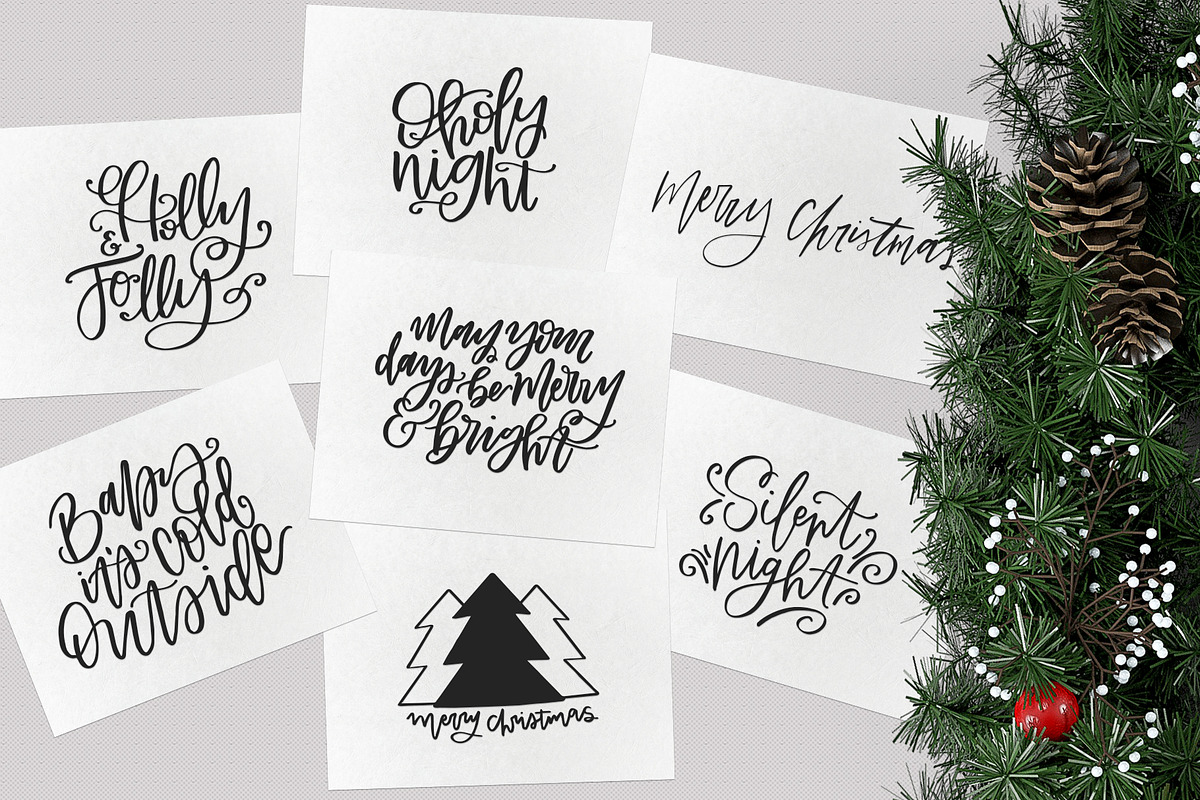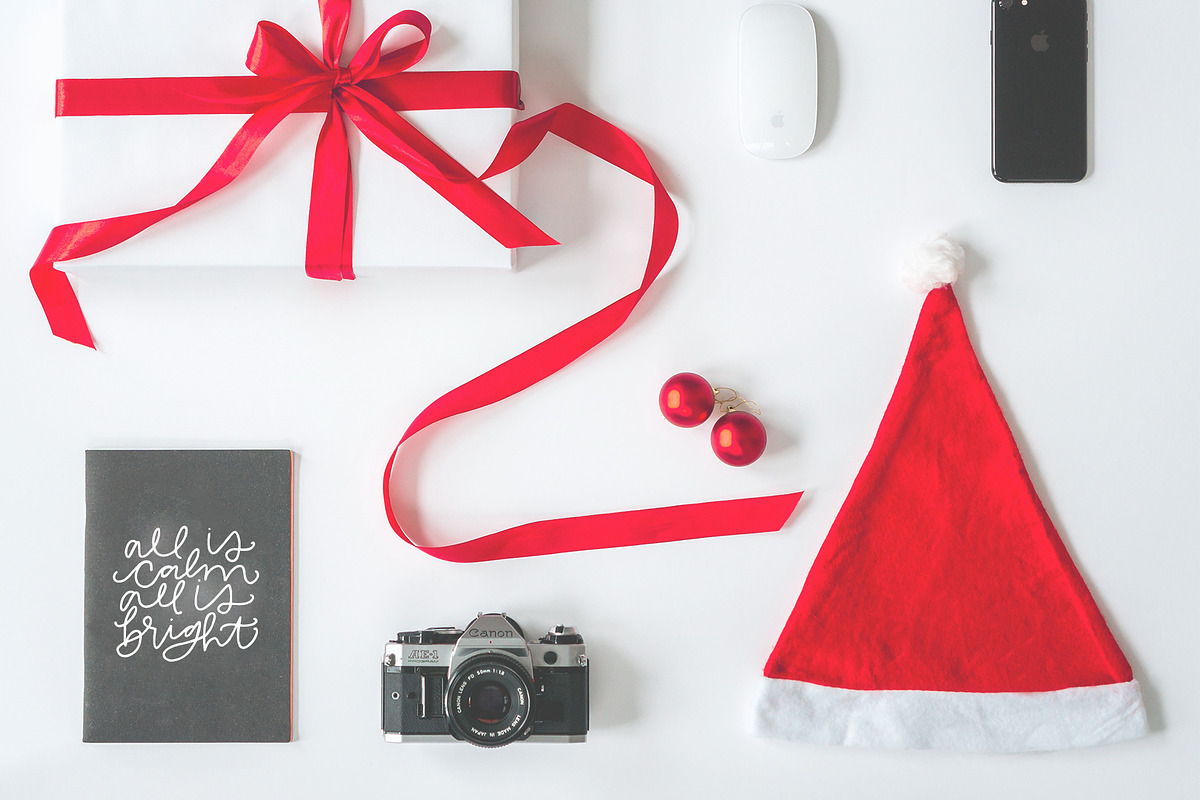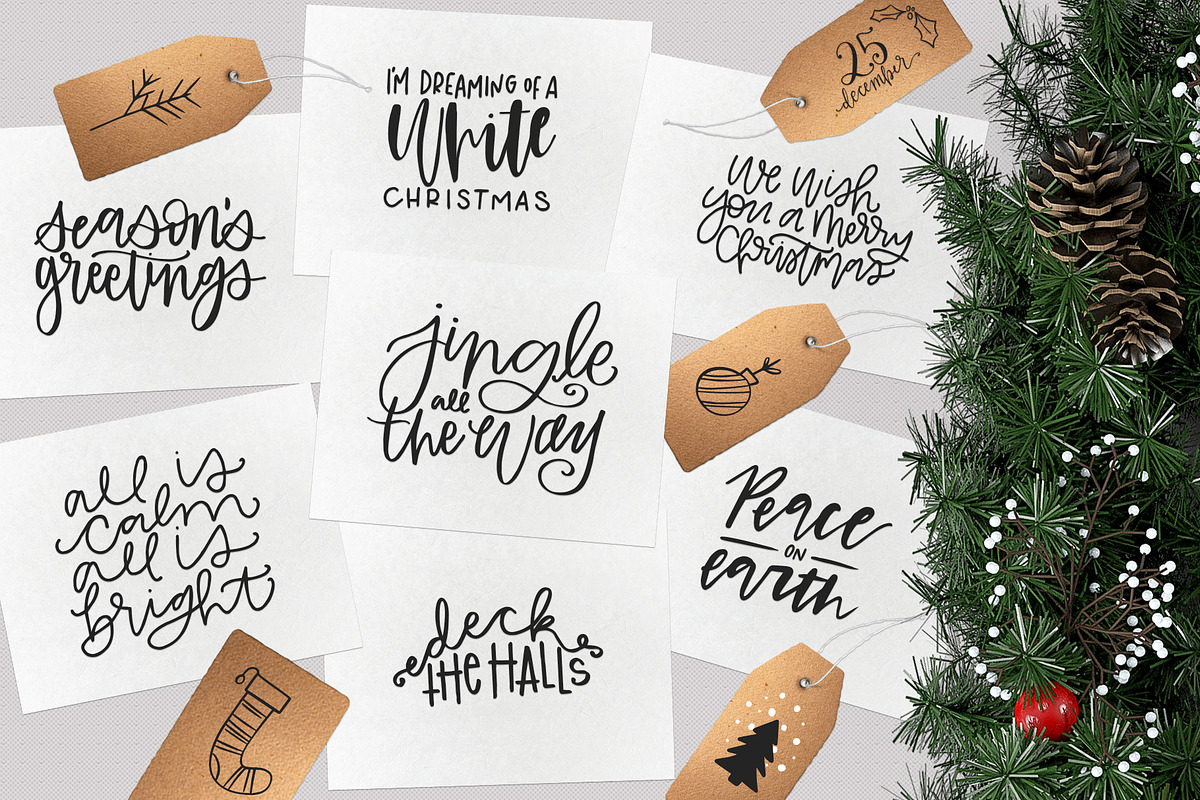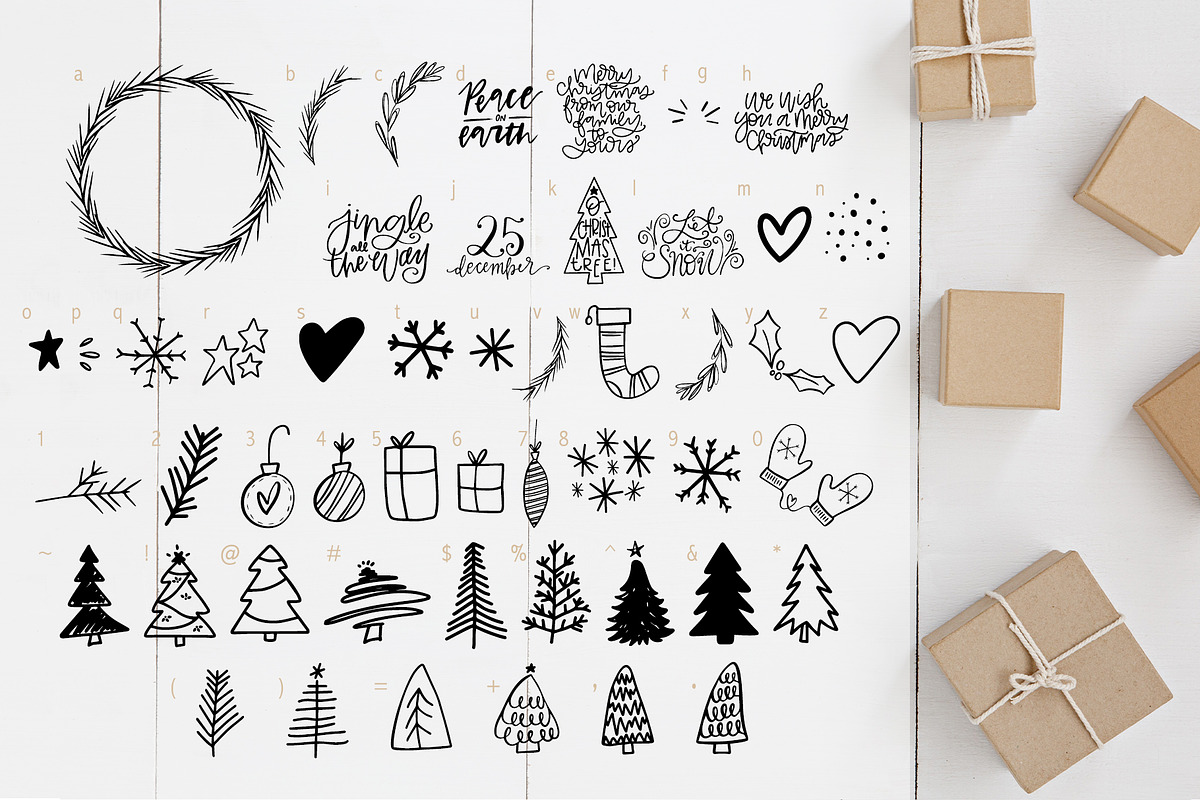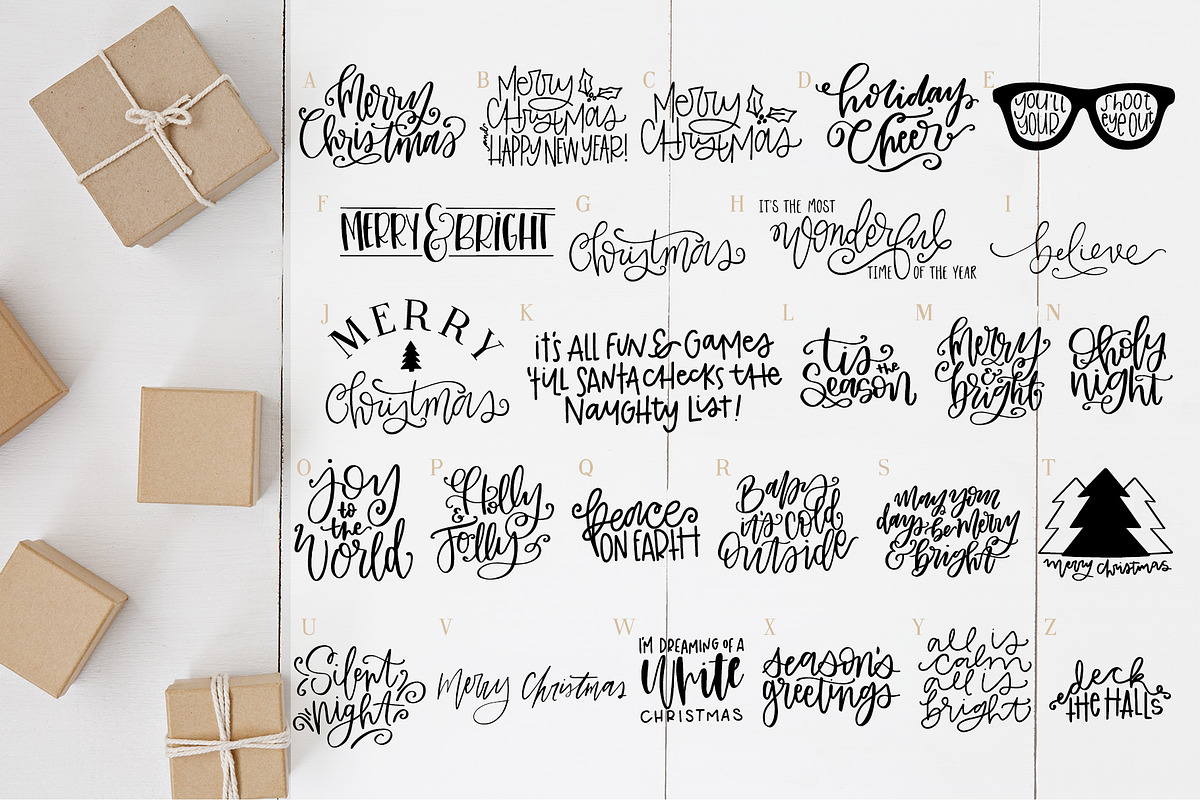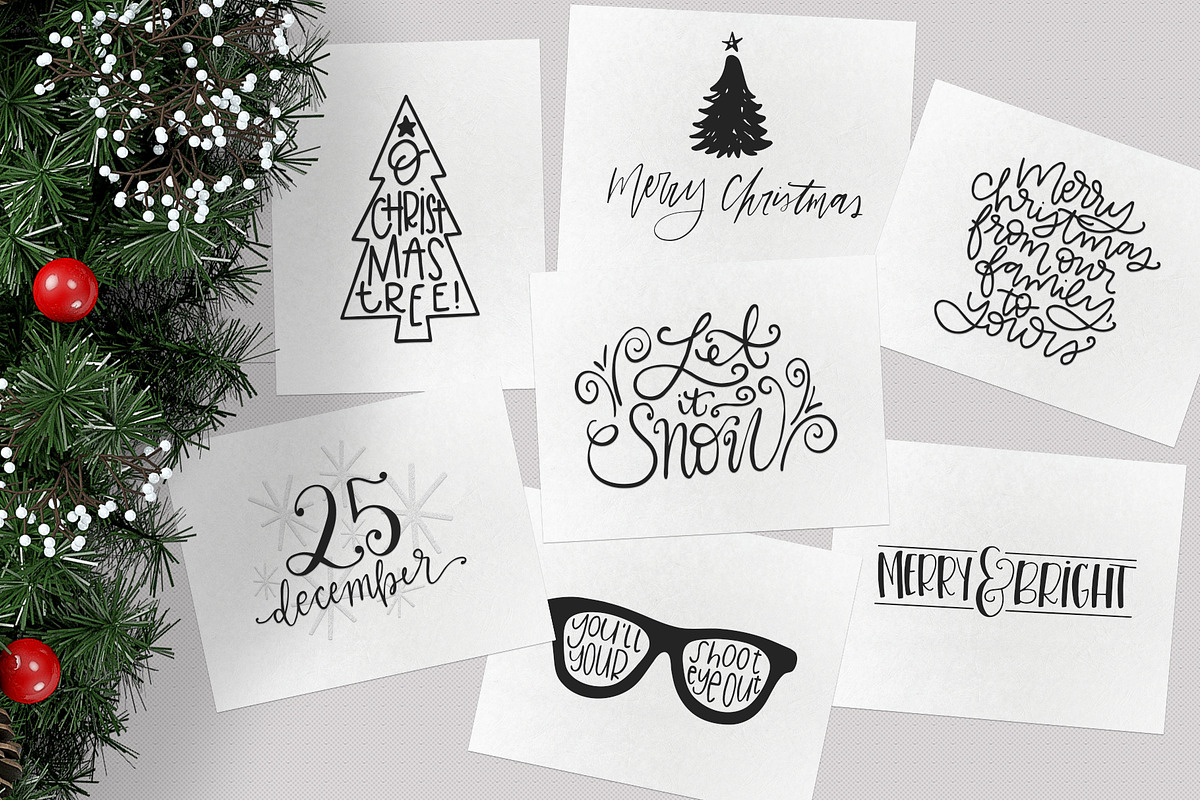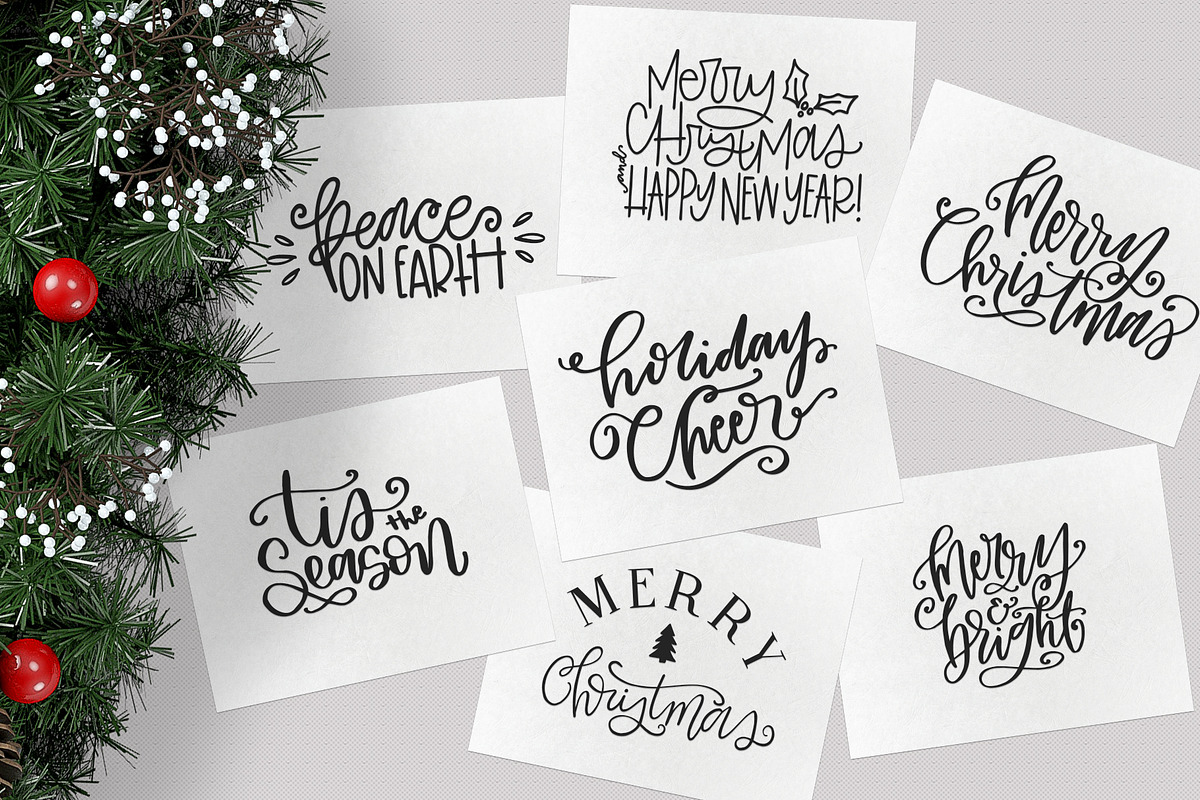
Christmas Symbols Font - Volume 2
80 hand lettered Christmas quotes and doodles right at your fingertips!
This is a symbols font that can be used with any kind of program! Just type in any letter, number, or punctuation and you will be surprised with a super cute, hand lettered Christmas quote or doodle!